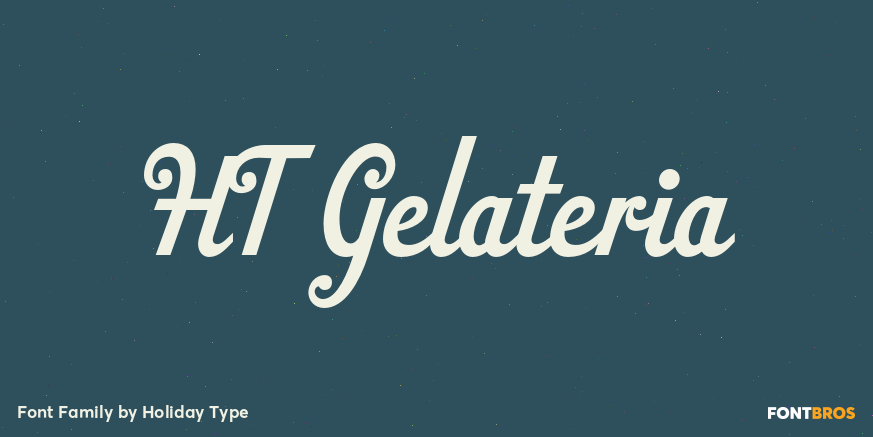
HomeFont BrosScripts: CasualHT Gelateria Scripts: Casual HT Gelateria FacebookXPinterestWhatsApp 1 of 1 About HT Gelateria Retro script based on shopfront lettering, wallpaint advertisements in Italy around 1950s.  DOWNLOAD ON FONT BROSThis font is sold and delivered by Font Bros. Font Canyon may earn a commission if you buy through this link. People also explored Boutique Paris Font Adrielle Font Wyaletta Font South Dallas Font Florista Monogram Font Strungles Font Butterskotch Something Exquisite Font Simbal Font 322 0 TagsHT Gelateria Font Previous articleCocktail SauceNext articleAint Nothing Fancy LEAVE A REPLY Cancel reply Comment: Please enter your comment! Name:* Please enter your name here Email:* You have entered an incorrect email address! Please enter your email address here Website: Save my name, email, and website in this browser for the next time I comment. Personal Use Free New Normal Personal Use Free Read more about this font Wildwest Personal Use Free Read more about this font Arnprior Personal Use Free Read more about this font Rionaldo Angelo Personal Use Free Read more about this font BLOG 5 Fonts That Will Dominate Design Trends in 2026 5 Fonts for 2026 That Will Dominate Design Trends Typography plays a critical role in visual communication, and as we look ahead to 2026, it’s... Where to Buy American Fonts Online in 2024 Top 10 Handwritten Fonts That Elevate Your Designs Transform Your Website: Elevate Your Typography with 7 Best Web Font Generators